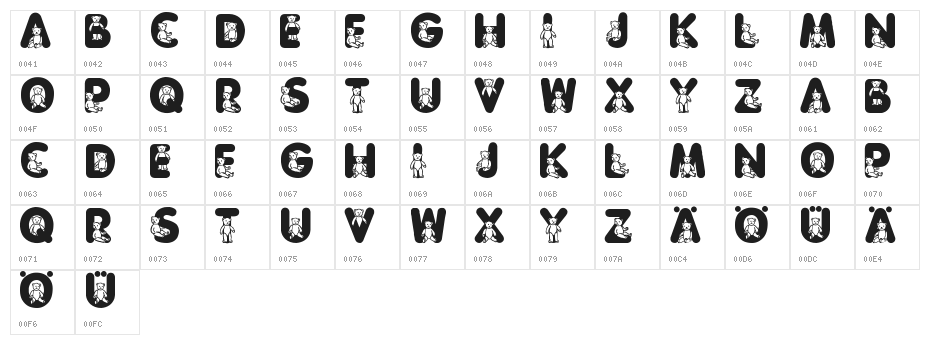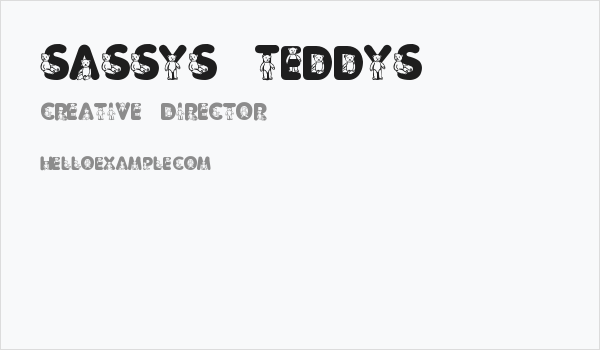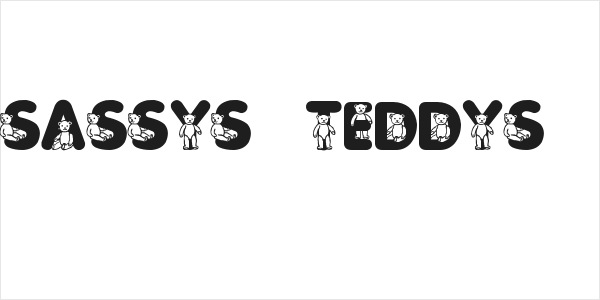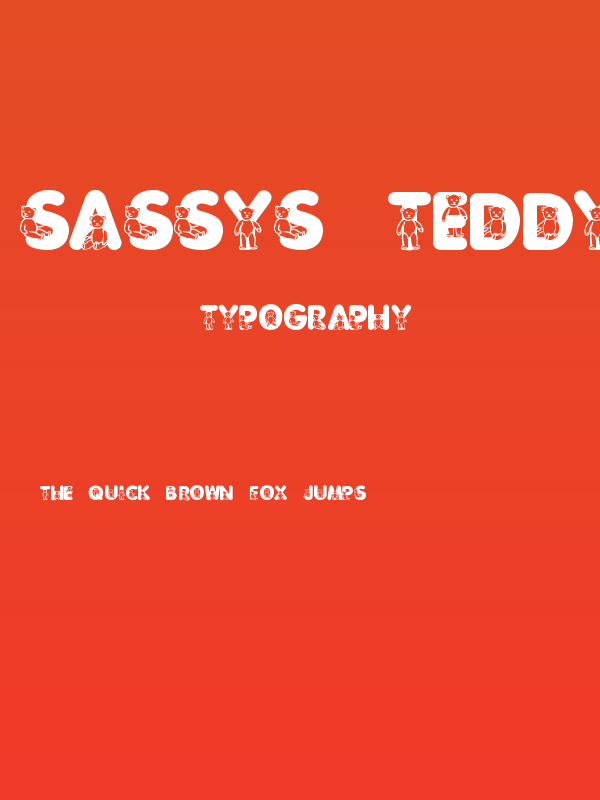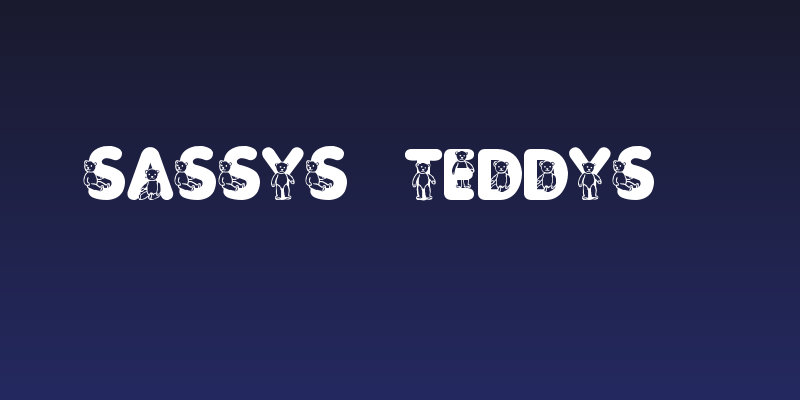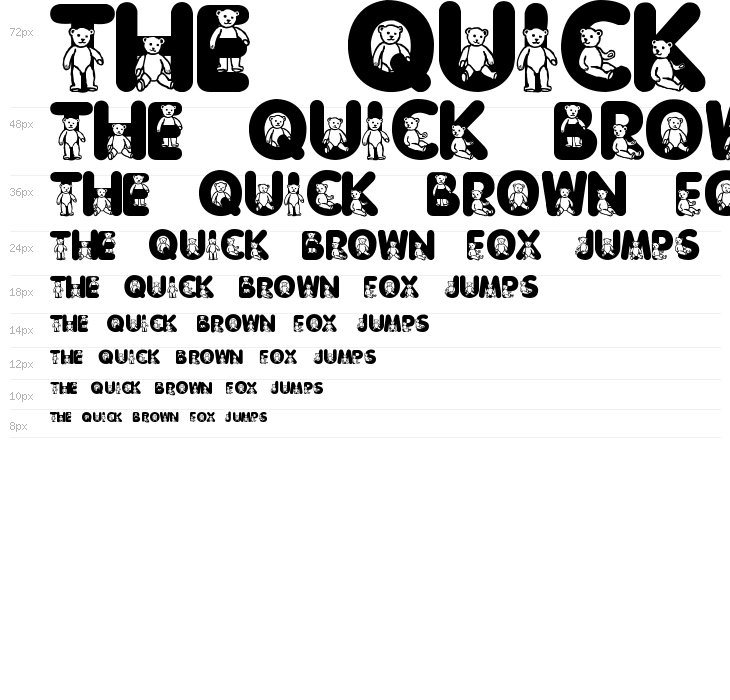
Sassys Teddys 3 Font
Sassys Teddys 3 Description
This playful and whimsical font features bold, rounded letters with charming teddy bear illustrations integrated into each character. The design is highly decorative, making it ideal for children's projects or playful themes. Each letter is accompanied by a teddy bear in various poses, adding a unique and endearing touch. The font's style is eye-catching and fun, perfect for capturing attention in a lighthearted manner. The characters are well-spaced, ensuring readability while maintaining the decorative elements.
| Use Case | Headlines, Logos, Decorative Text |
| Proposed Projects | Ideal for children's books, toy packaging, birthday invitations, and playful branding. |